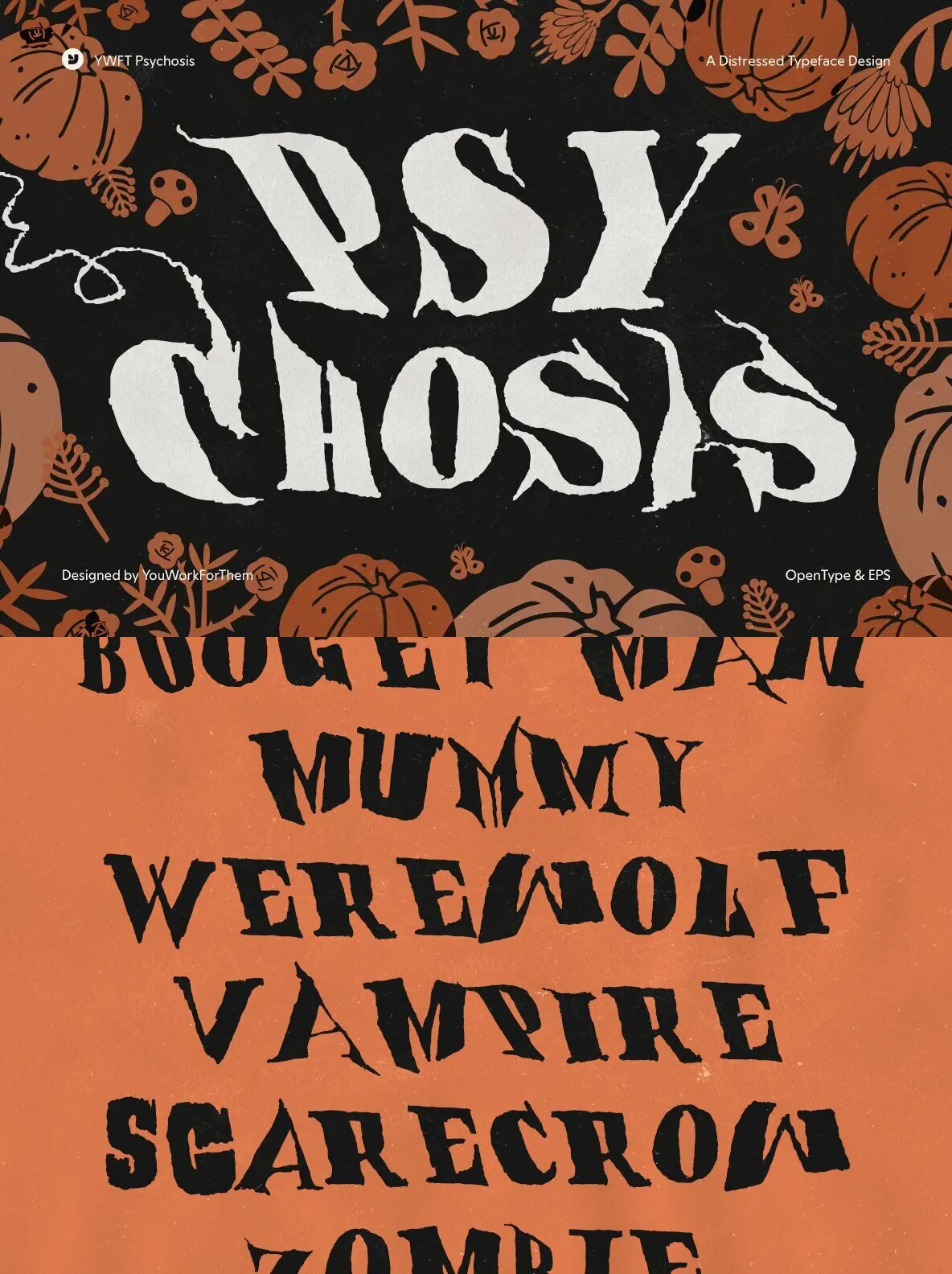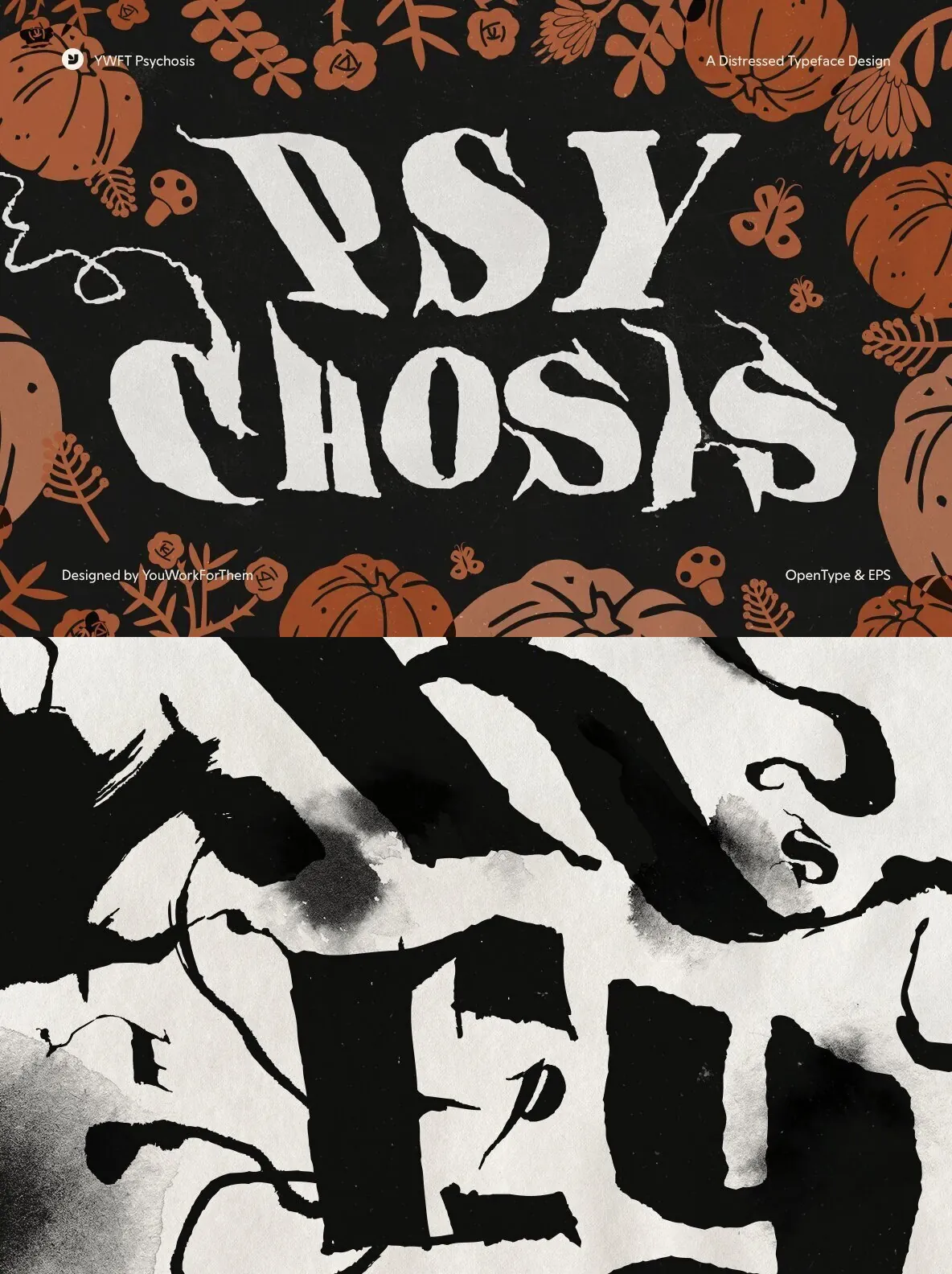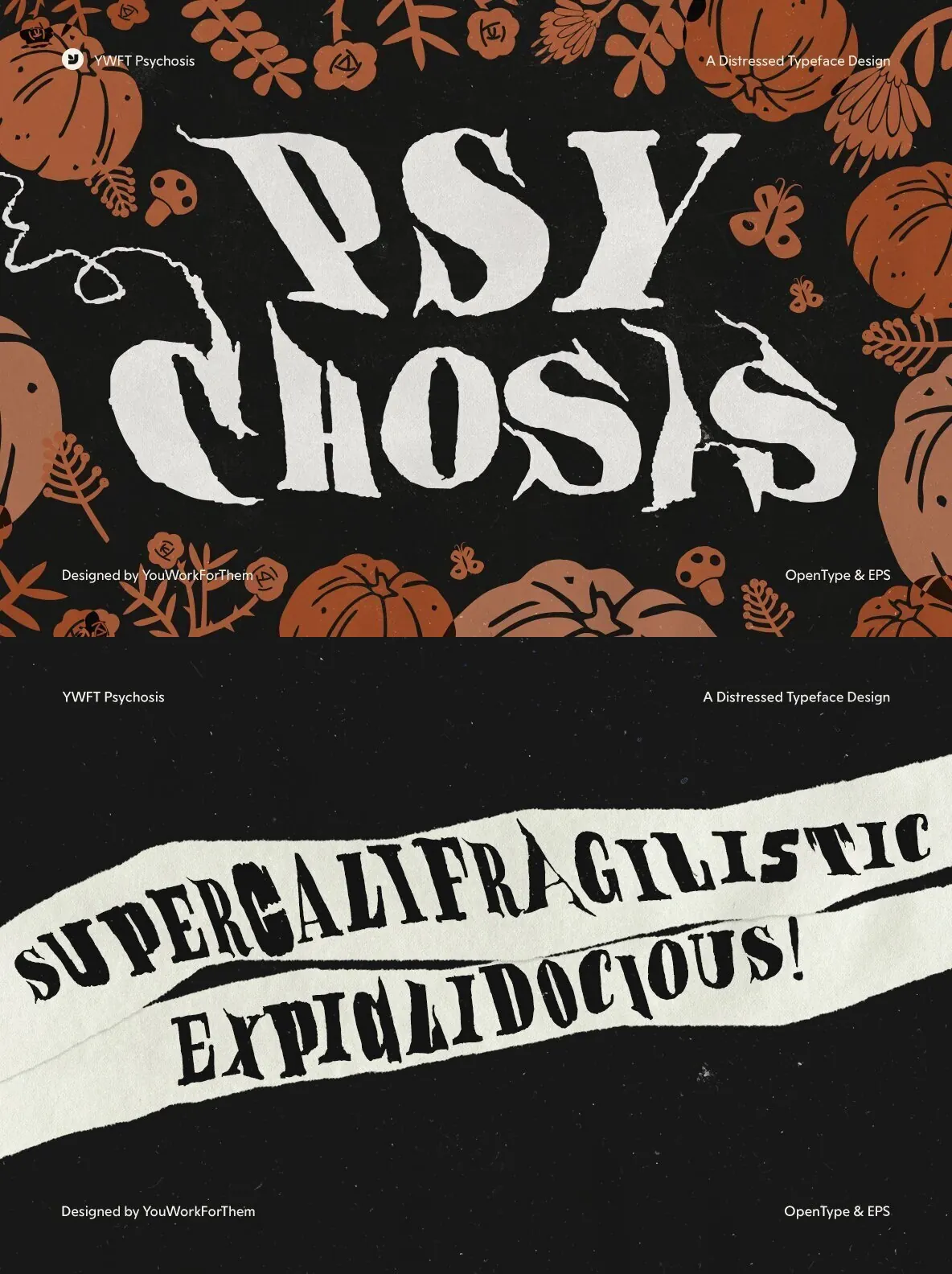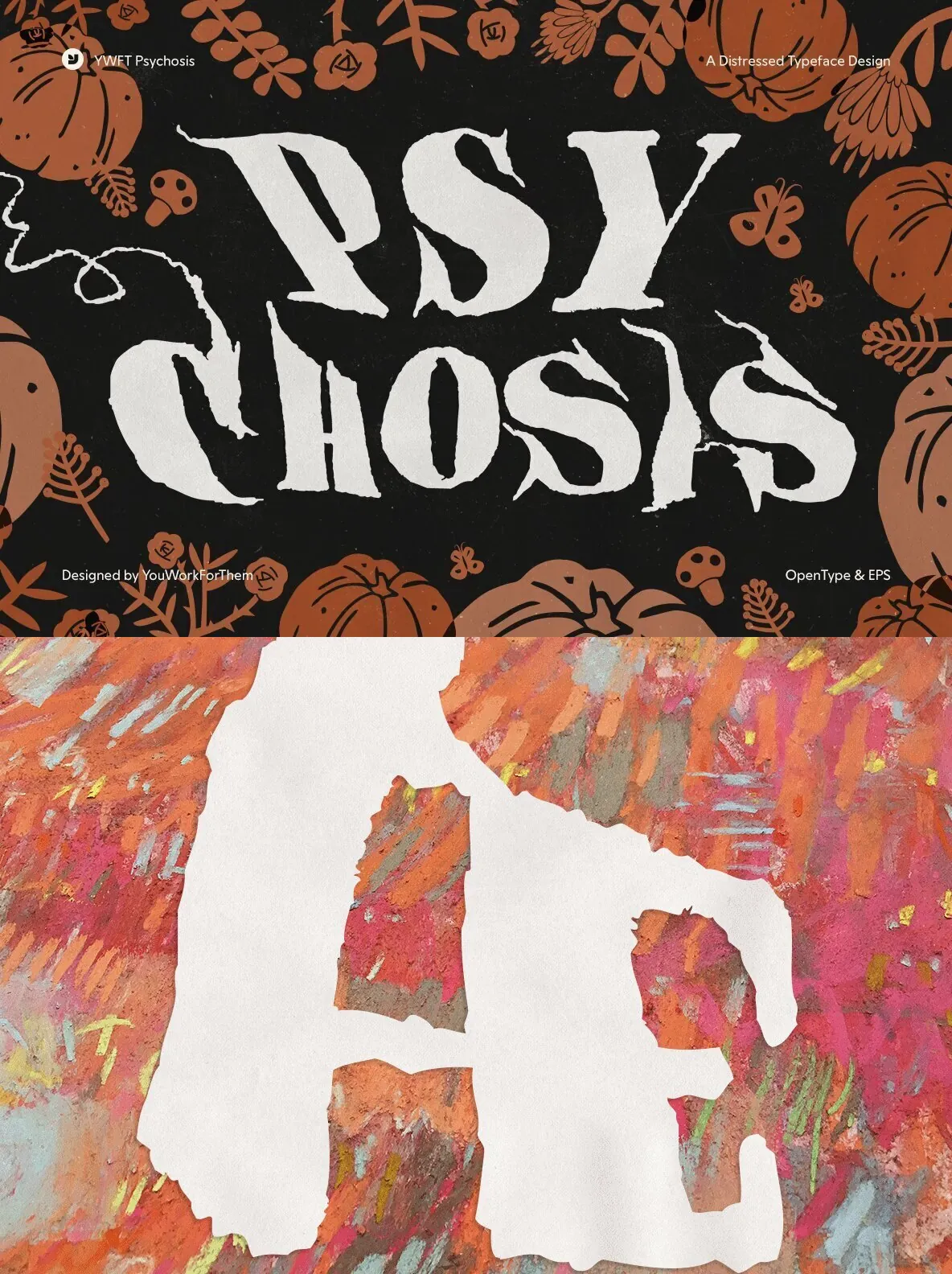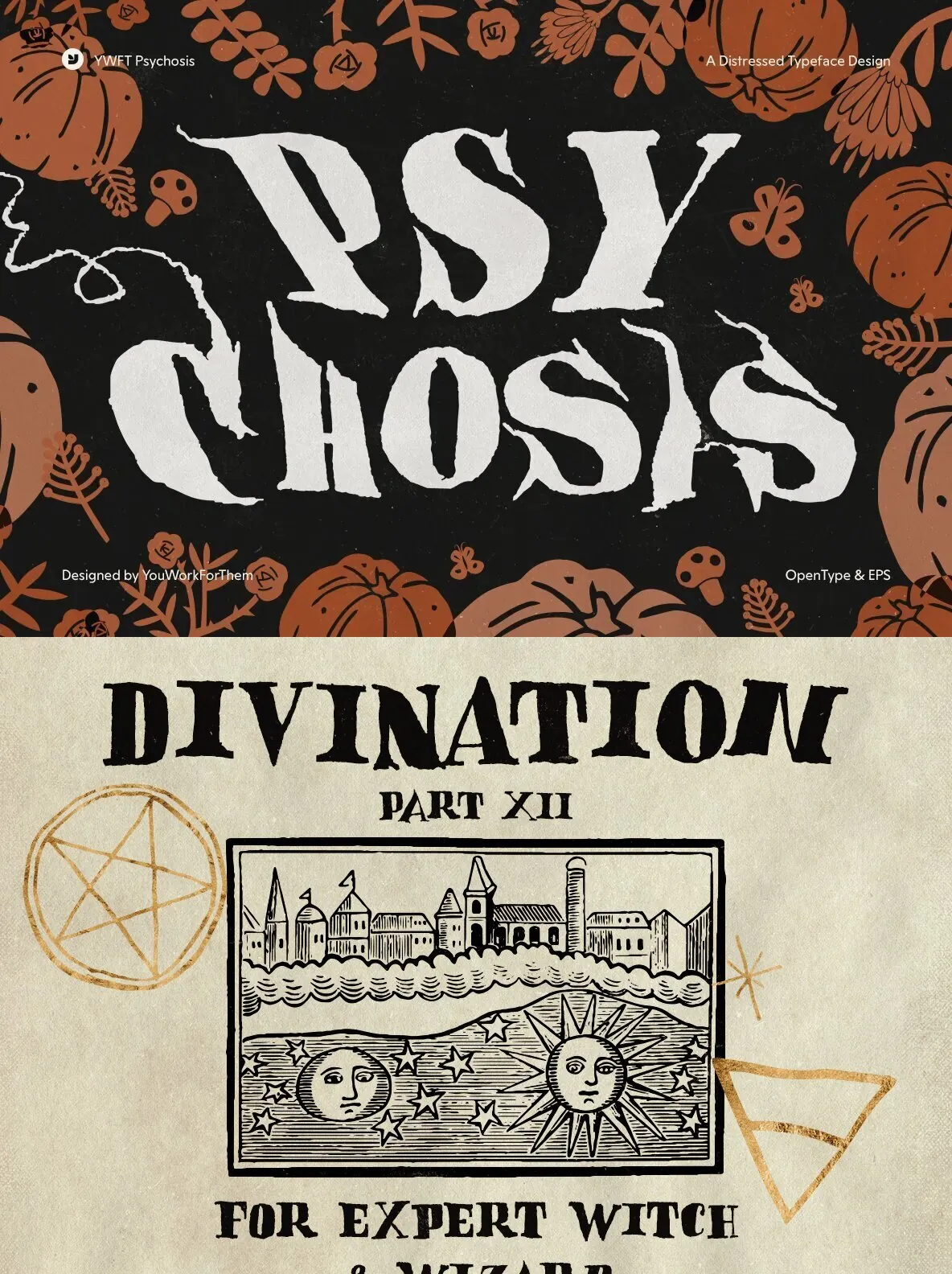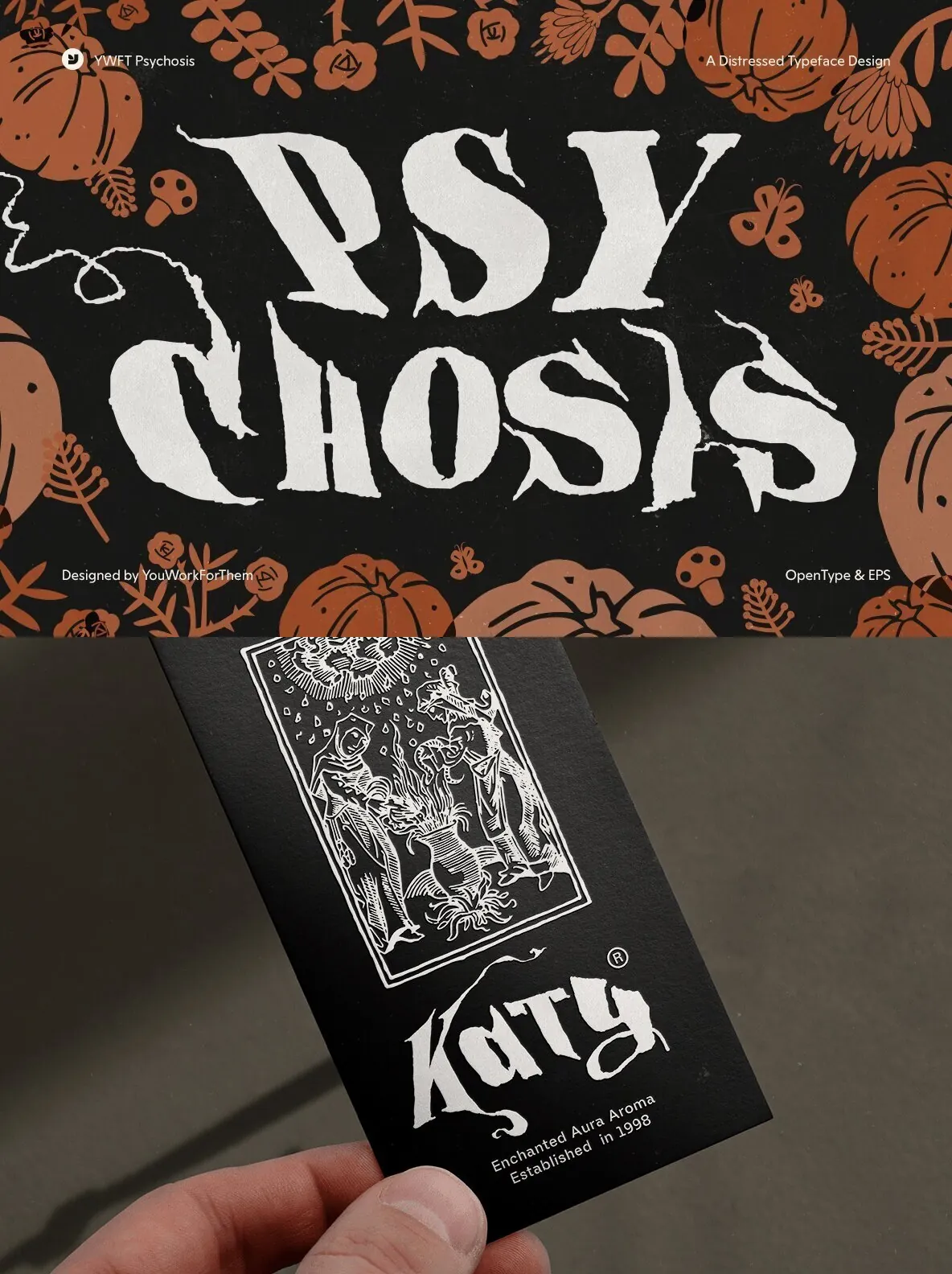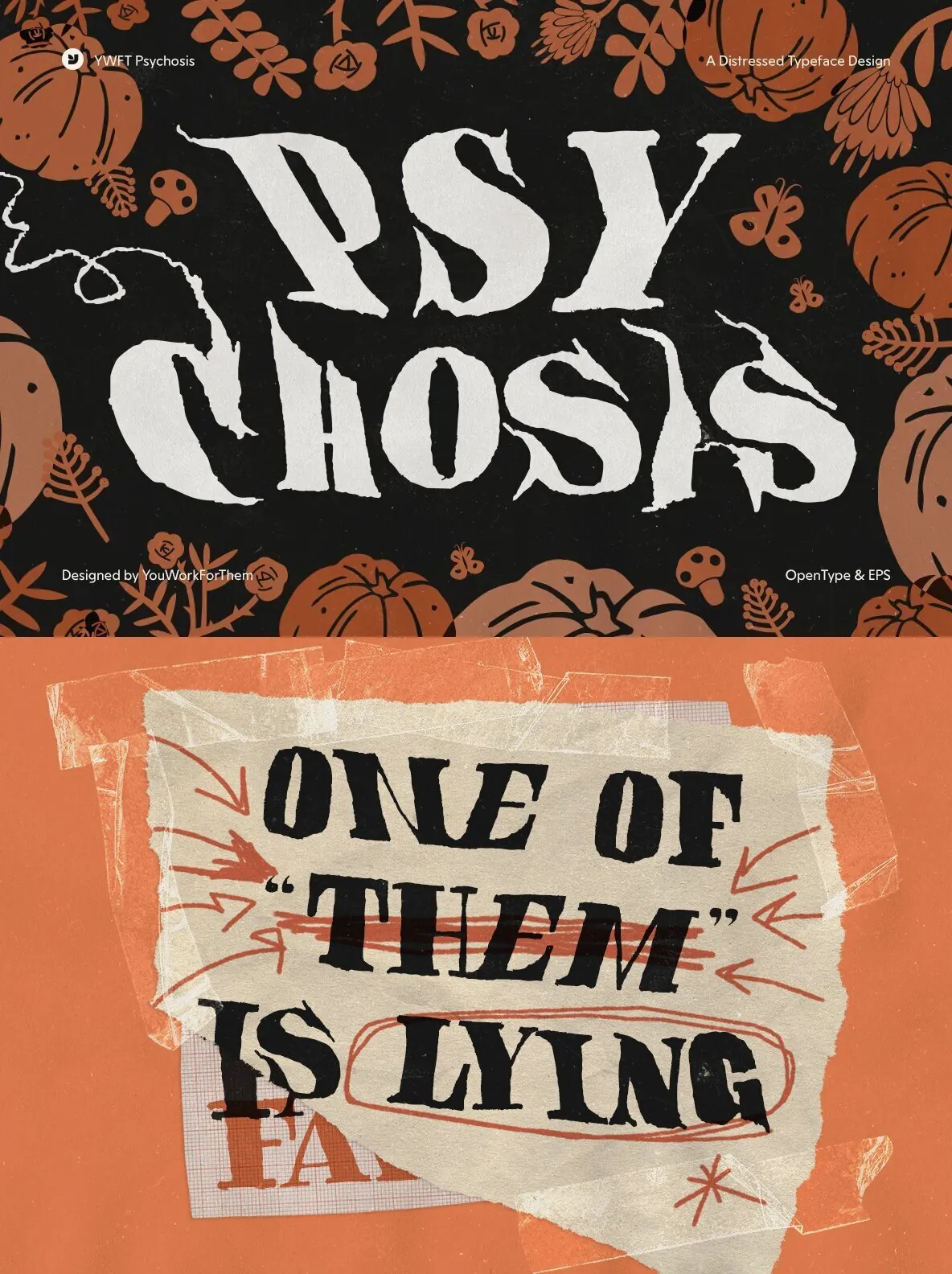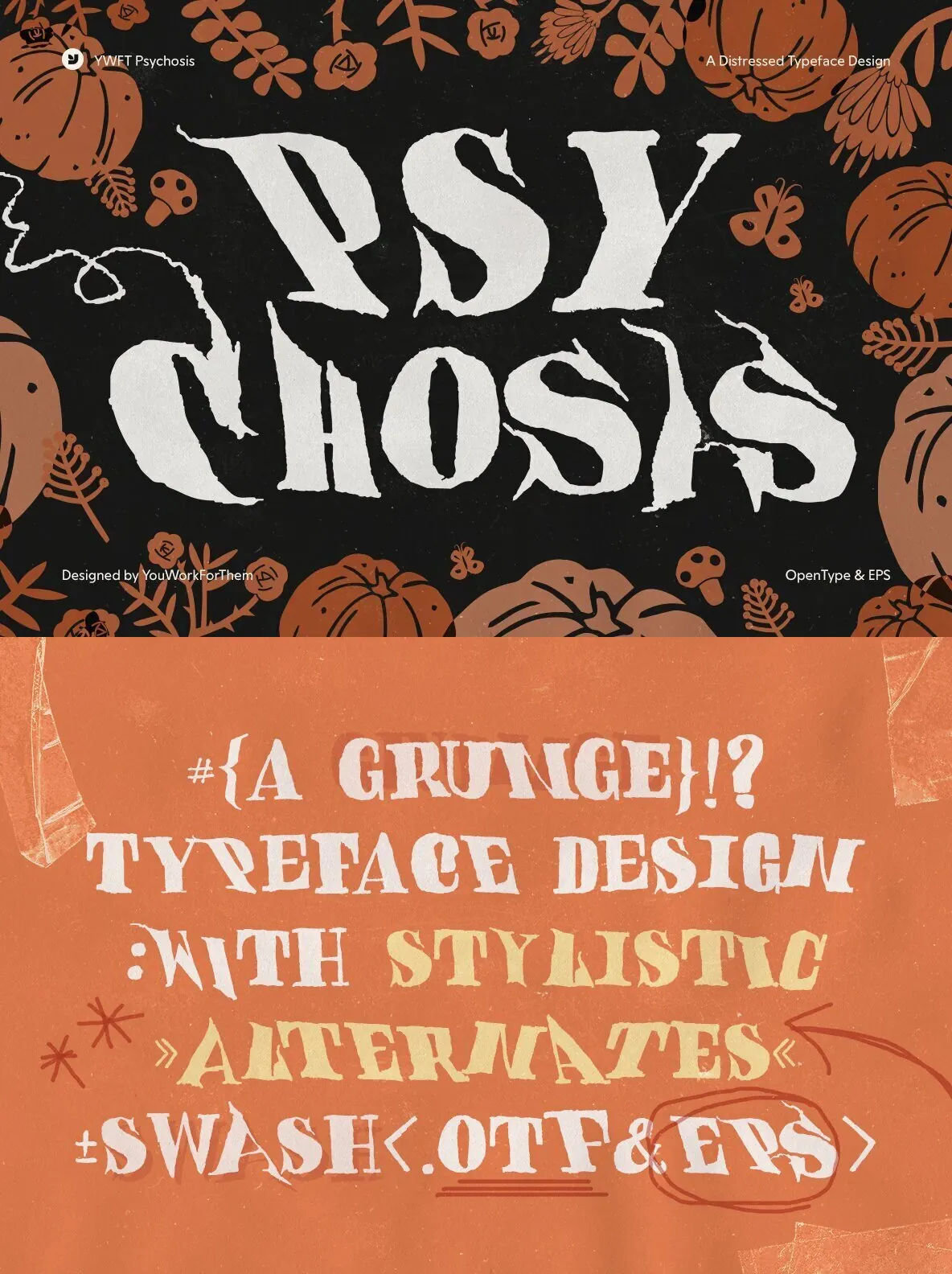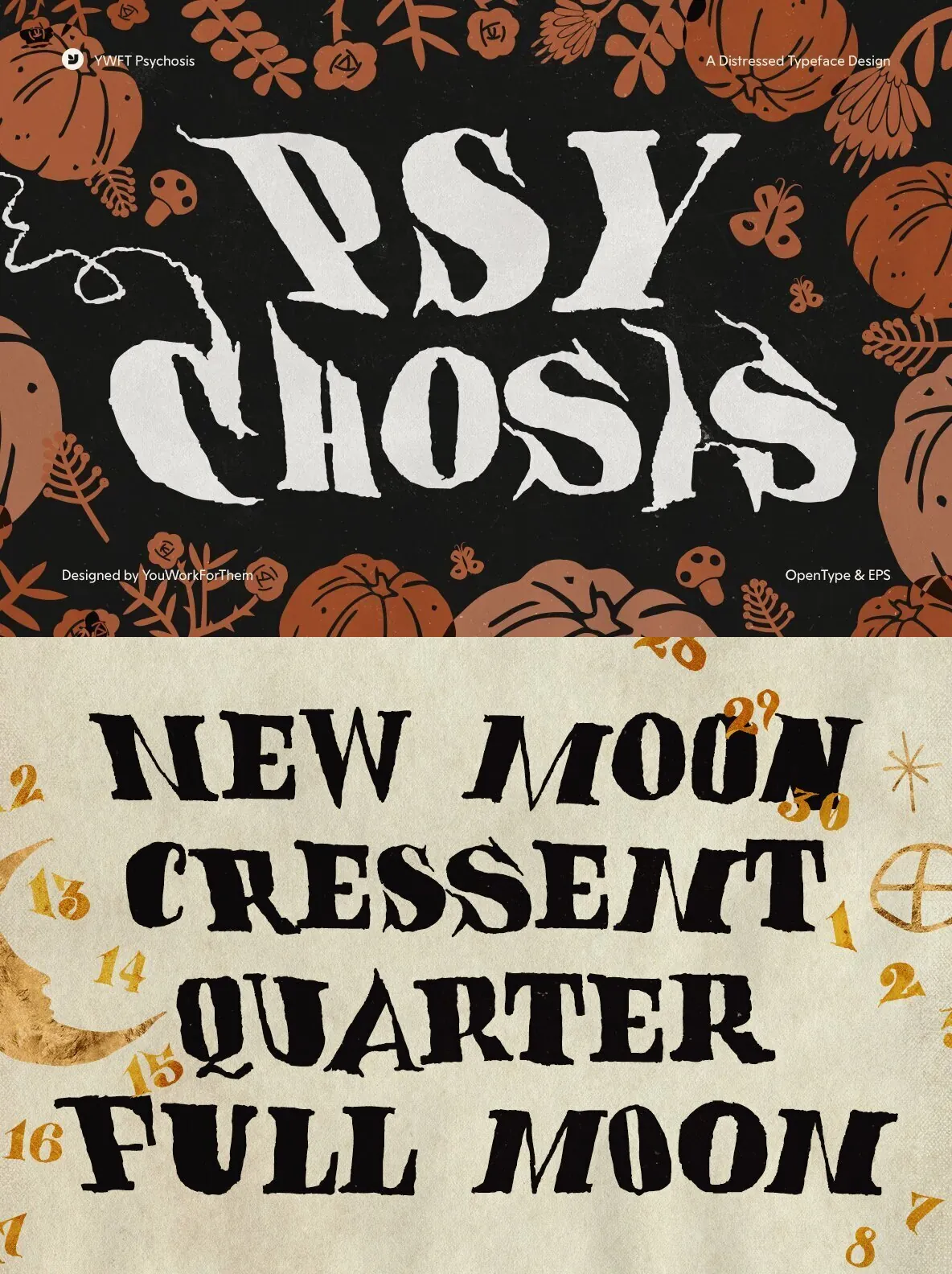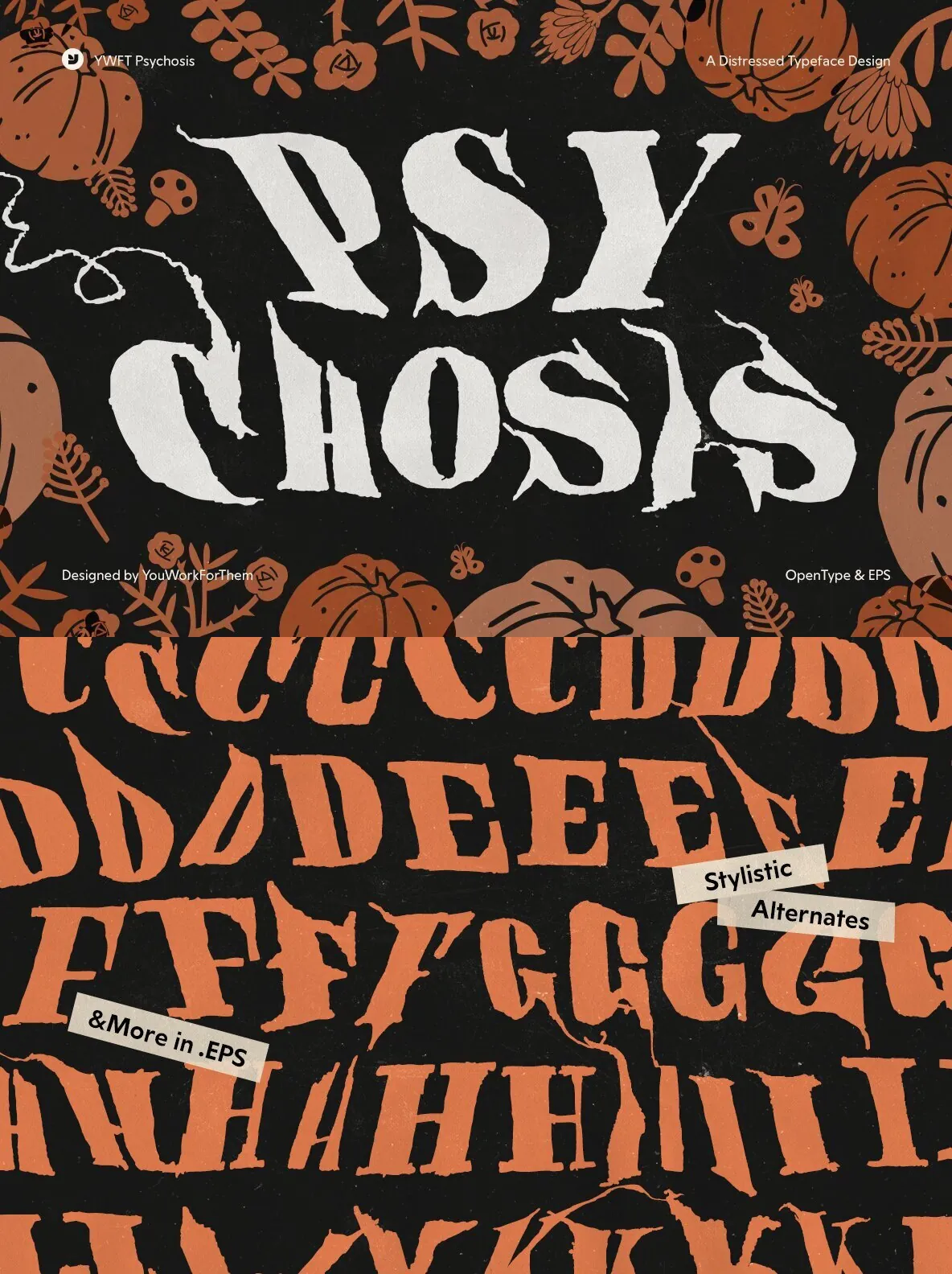
Unleash Unparalleled Creativity with YWFT Psychosis
YWFT Psychosis is an OpenType font like no other. Designed with the unique creativity of the Shaolin type-monks at
PintassilgoPrints
, this font offers an innovative experience where the characters seem to have a life of their own. Tailored for projects needing a touch of darkness and mystery, YWFT Psychosis brings a deep emotional character that bridges the gap between modern and enigmatic.
Featuring 441 glyphs, this font is packed with creative potential. The font includes numerous stylistic alternates, contextual alternates, and multiple style sets, making it a highly versatile choice for any design professional using Adobe InDesign or Illustrator. Additionally, it comes with
two free EPS handset files
, offering a treasure trove of flourishes and artistic debris. Let YWFT Psychosis infuse your design with its compelling, unpredictable charm.